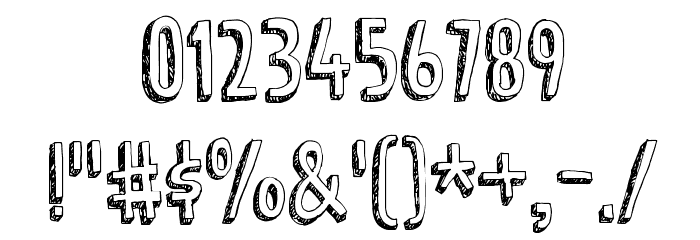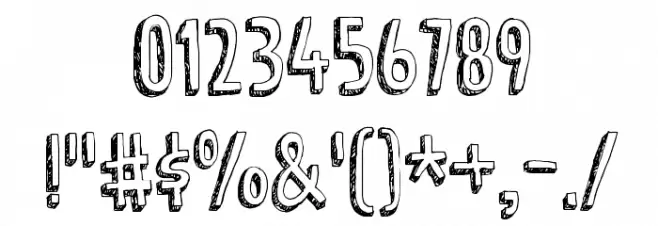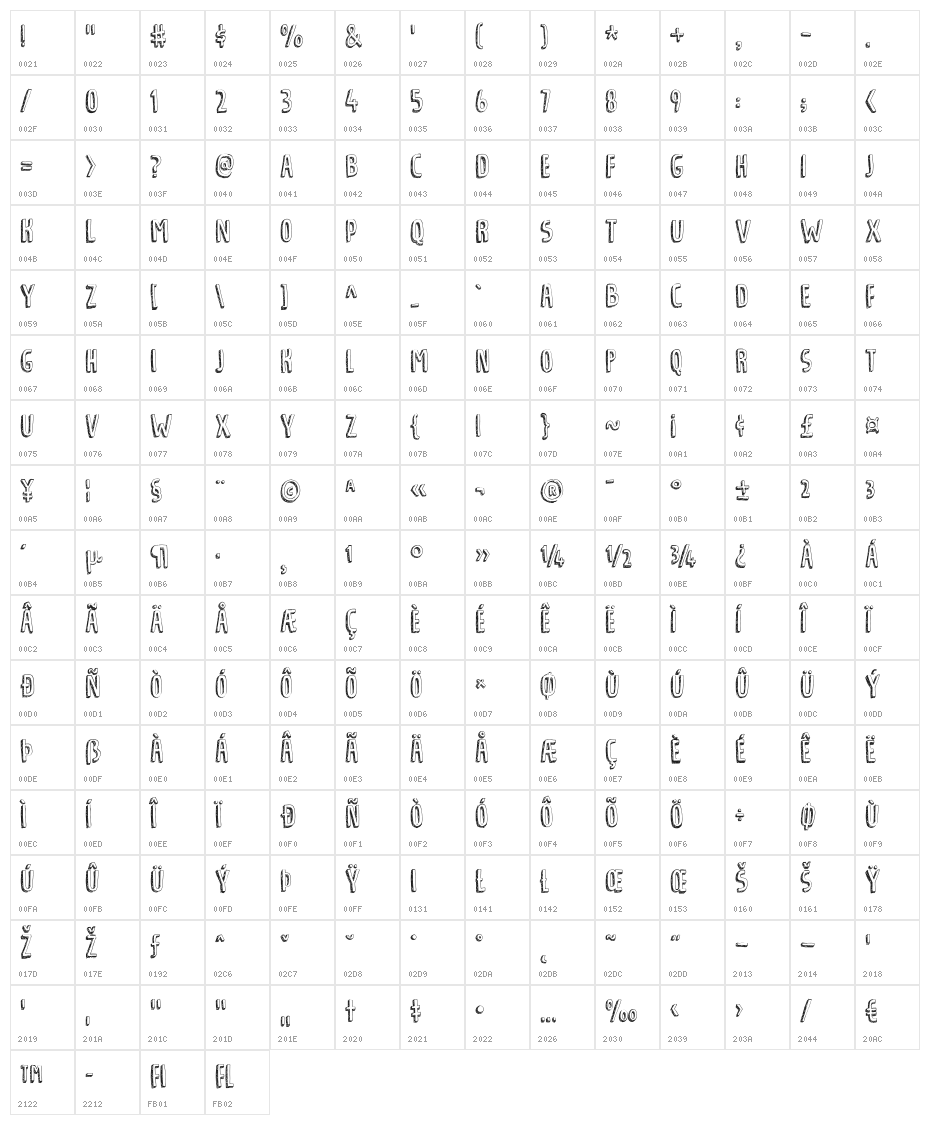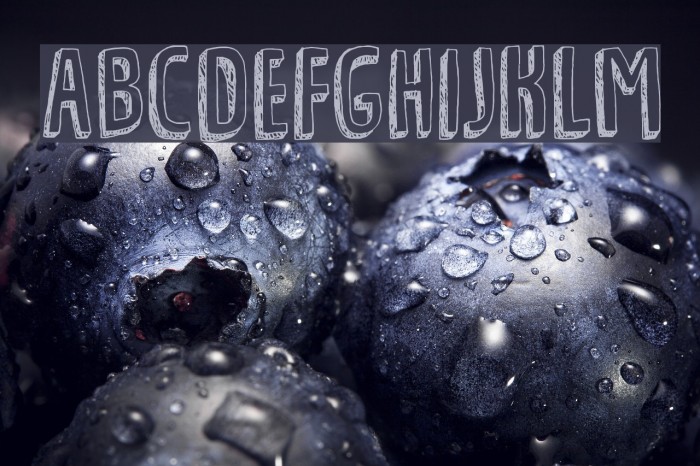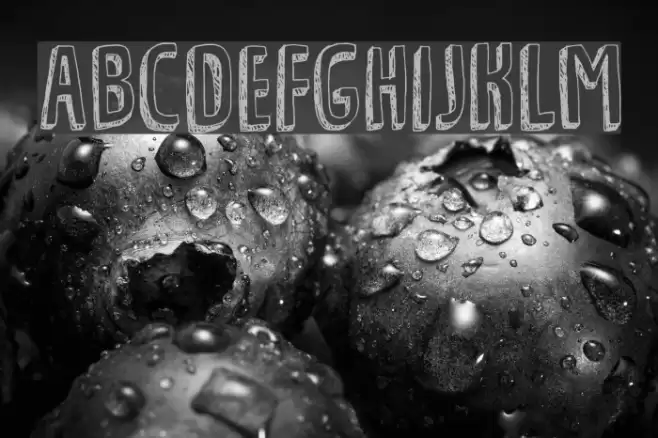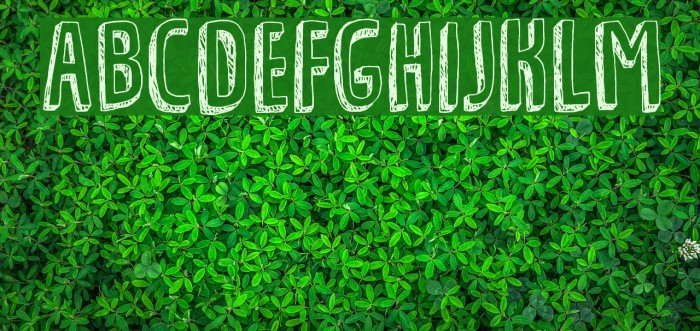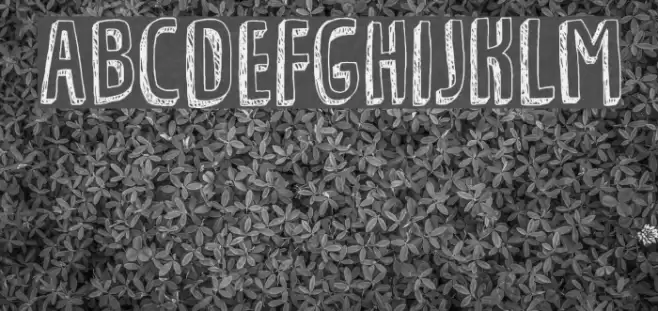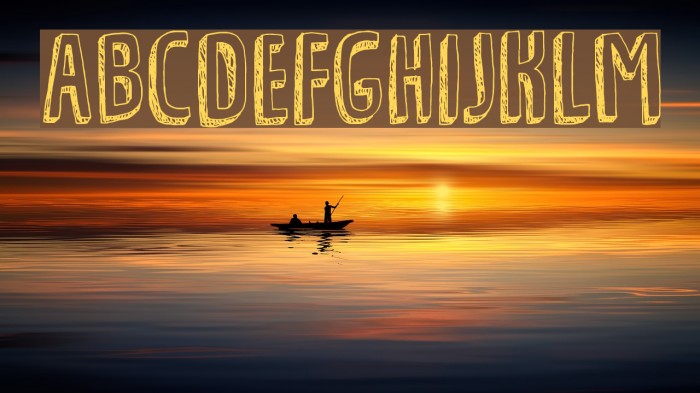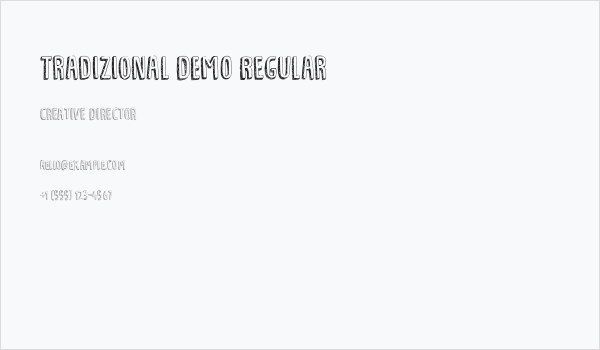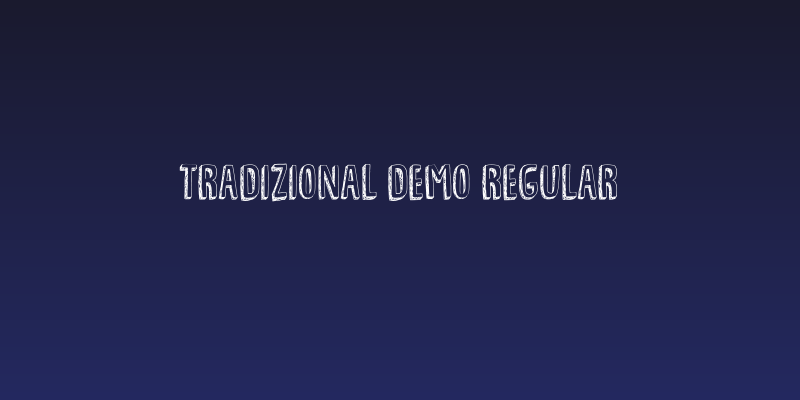
Tradizional DEMO Regular Font
Tradizional DEMO Regular Description
This font features a hand-drawn, textured style that gives it a rustic and artisanal feel. The characters are bold and slightly irregular, with a sketch-like appearance that adds a unique charm. The uppercase and lowercase letters maintain a consistent style, while the numbers and special characters complement the overall design. The font's playful and informal nature makes it suitable for creative projects that require a personal touch. Its distinctive look is ideal for capturing attention and conveying a sense of individuality.
| Proposed Projects | Ideal for branding, packaging, posters, and invitations where a personal and creative touch is desired. |